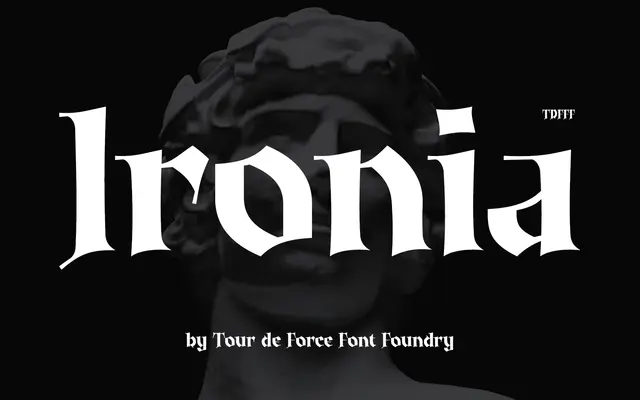
Ironia
Tour de Force · Dušan Jelesijević · 2025
A single-weight modern blackletter by Dušan Jelesijević, evoking a medieval visual character through contemporary letterform construction.
Released in July 2025, Ironia offers one Regular style with 370 glyphs and coverage across 102 languages in the Extended Latin range. The designer cites no direct historical references, yet the typeface carries a clear archaic quality closest to Middle Age lettering. With no OpenType features, it is a straightforward display face suited to editorial headings, packaging and branding where a gothic tone is needed.
The foundry classifies it as Display and describes it as a modern blackletter evoking a medieval archaic impression, placing it squarely in the blackletter category with a contemporary approach.